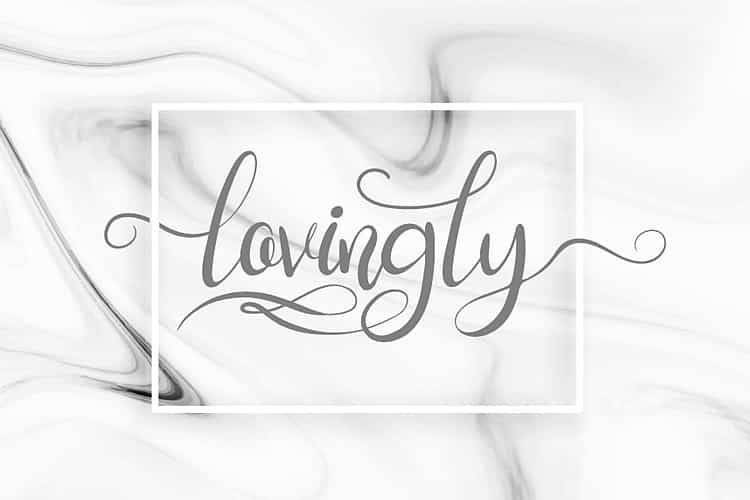
Sweengly is a sweet script font, it is appropriate for any projects like logo, branding projects, homeware designs, product packaging, mugs, quotes, posters, shopping bags, t-shirts, book covers, name card, invitation cards, greeting cards, label, photography, watermark, special events, and all your other beautiful handwriting projects.